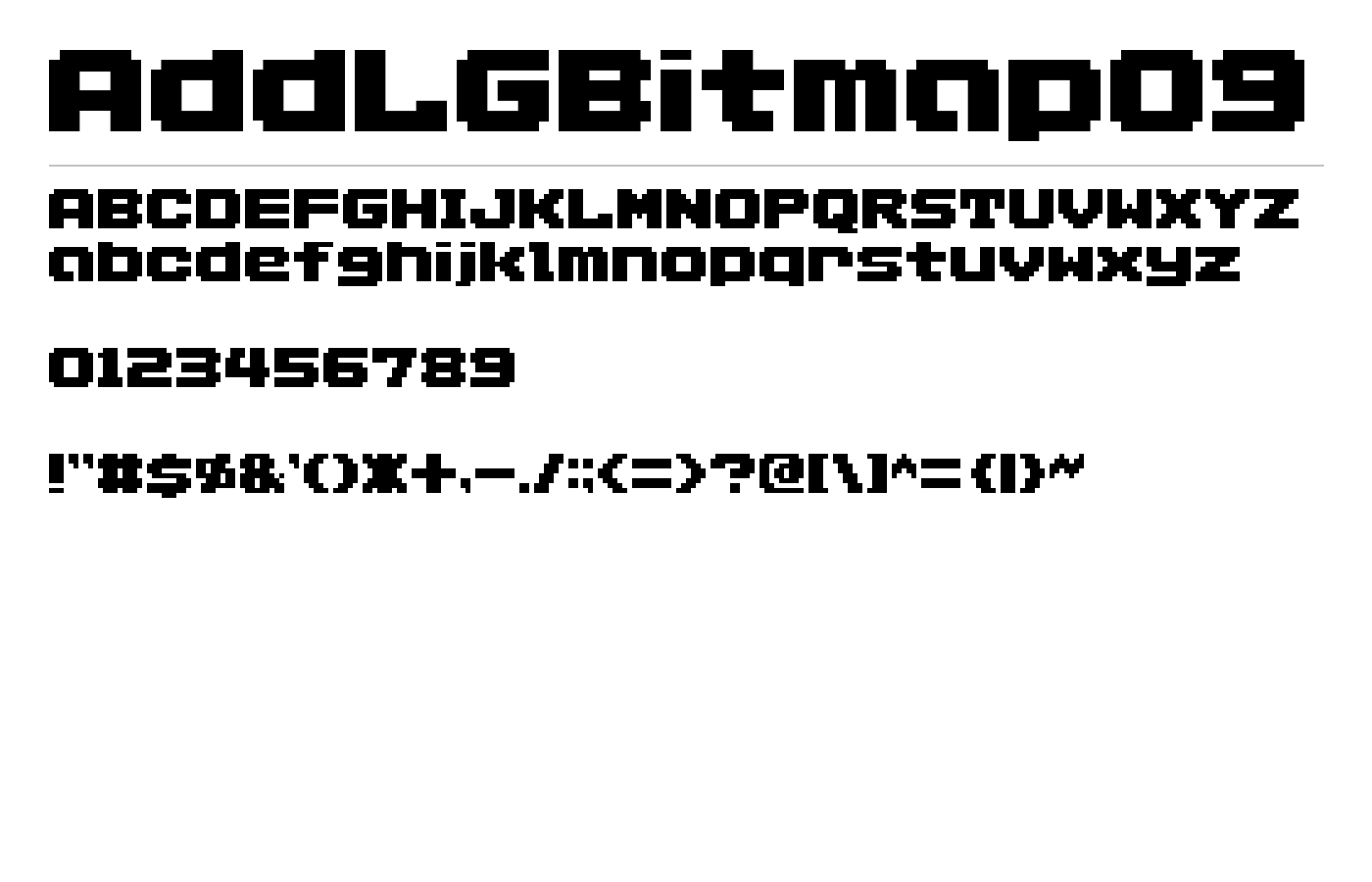
AddLGBitmap09 is a bold, blocky pixel-style sans serif font characterized by its strong, geometric shapes and uniform stroke weight. Its clear, compact letterforms and low x-height give it a retro digital vibe, making it ideal for gaming, tech-inspired designs, or any project seeking a nostalgic, pixel-art aesthetic. This font works best in logos, headlines, and digital interfaces where a distinctive, techy personality is desired.
AddLGBitmap09 Font